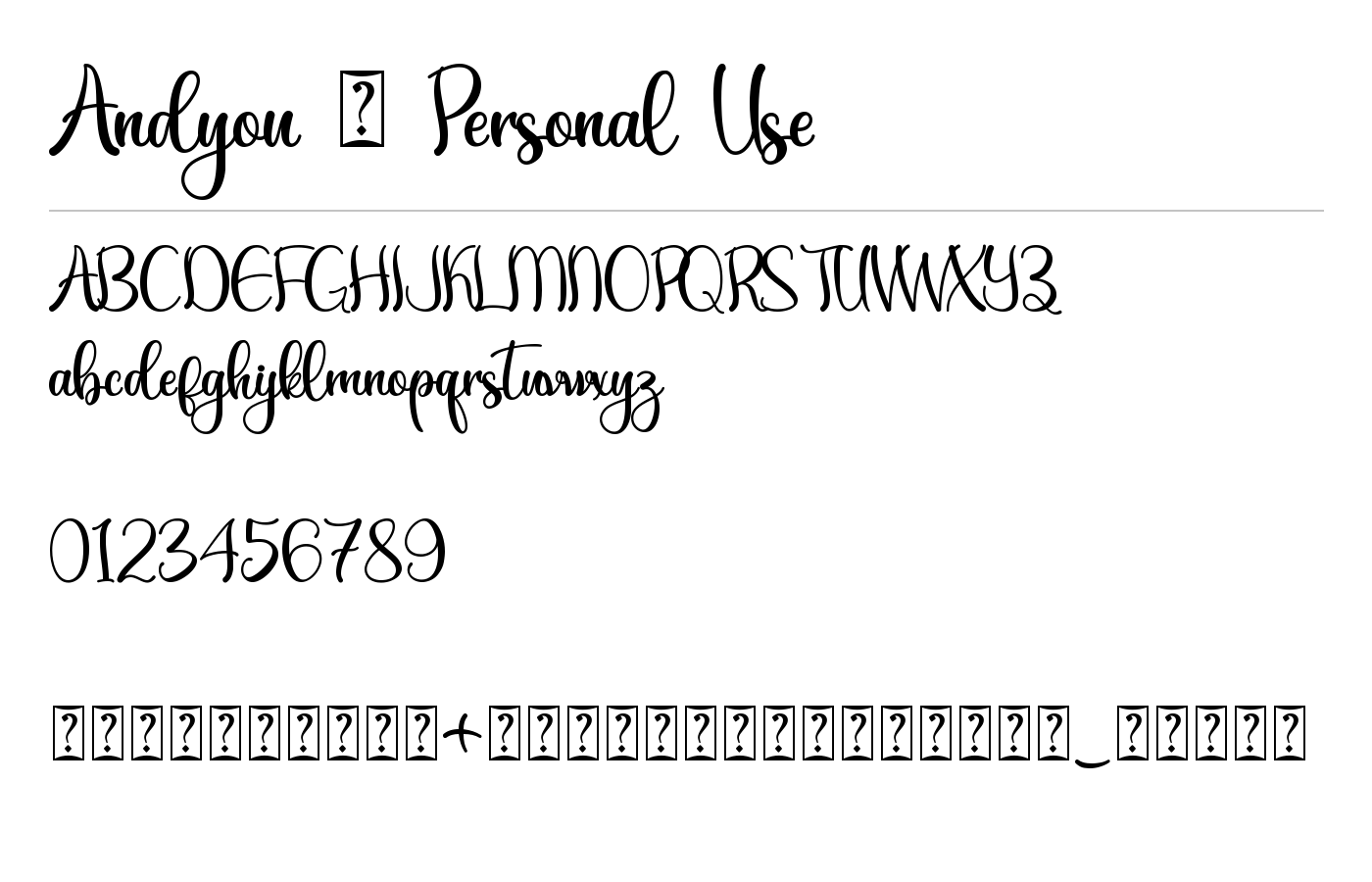
Andyou is a charming handwritten script font with a playful yet elegant feel, featuring flowing letterforms and a moderate contrast between thick and thin strokes. Its tall x-height and distinctive letter shapes lend a personal and friendly touch, making it ideal for creative projects, invitations, branding, and any design that benefits from a warm, approachable style. This font works best in headlines and decorative text where its unique character can shine.
Andyou - Personal Use Font
About Andyou - Personal Use Font